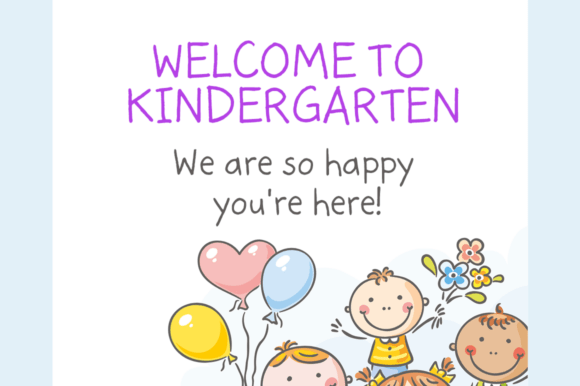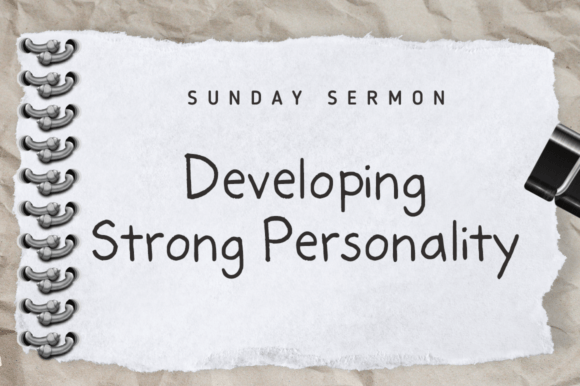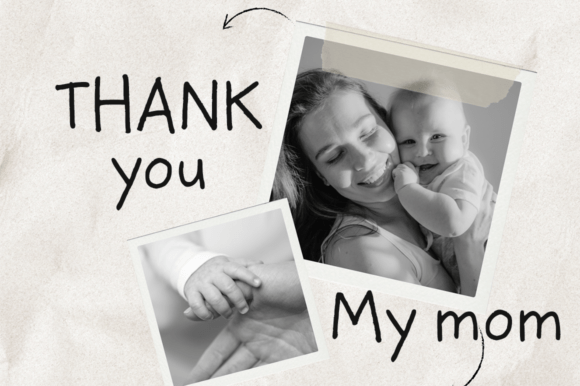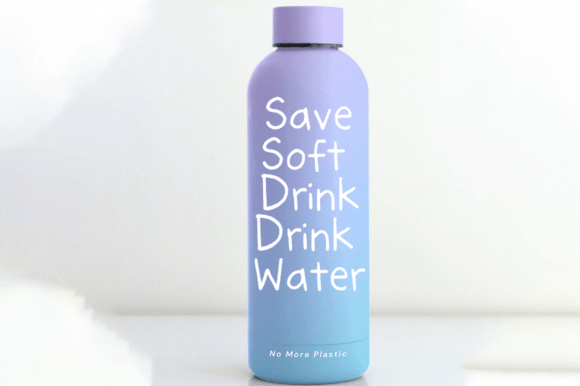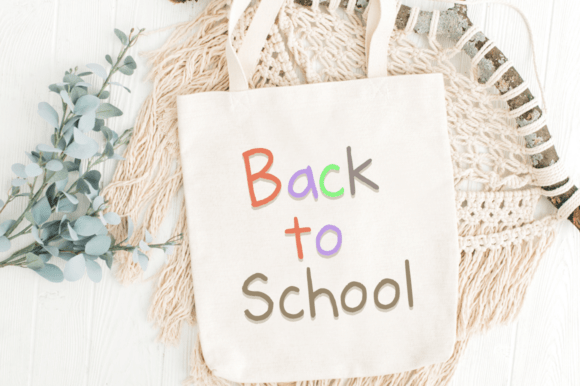
Bringing Back Childhood Memories with the Kids Crayon Font
Who among us hasn’t sat at a kitchen table, surrounded by crayons and paper, and let our imagination run wild? The vibrant colors and playful strokes of our childhood artwork bring a smile to our faces, reminding us of carefree days spent creating and exploring. As designers, we’re often tasked with capturing that same sense of whimsy and wonder in our projects. That’s where the Kids Crayon Font comes in – a delightful, handwritten font that embodies the essence of crayon stylings.
With its unique, hand-drawn charm and effortless readability, the Kids Crayon Font is a valuable addition to any designer’s toolkit. Whether you’re working on a children’s book, a birthday party invitation, or a family-themed advertisement, this font is sure to bring a touch of joy and youthfulness to your project.
Kids Crayon Font Key Features
- Unique Characteristics: The Kids Crayon Font is designed to mimic the look and feel of children’s crayon drawings, with bold, colorful lines and playful letterforms.
Designer Review: Kids Crayon Font
Overall, the Kids Crayon Font has a certain charm to it. ✨ The use of bold, bright colors and playful scribbles creates a whimsical feel that’s perfect for children’s books and educational materials. The font’s irregularities and imperfections also give it a hand-drawn, personal touch that can be very effective in conveying a sense of innocence and playfulness.
One of the strengths of the Kids Crayon Font is its versatility. ✨ It can be used for a wide range of applications, from headings and titles to body text and illustrations. The font’s bold weight is particularly well-suited for highlighting important information or creating visual interest.
- ⚠️ The font’s irregularities can make it difficult to read at small sizes or in long blocks of text.
- ⚠️ The font’s bold weight can be overwhelming if used extensively throughout a document.
- ⚠️ The font may not be suitable for formal or professional applications due to its playful, childlike appearance.
Overall, the Kids Crayon Font is a fun and engaging choice for children’s materials and educational content. While it may have some limitations, its unique charm and versatility make it a great option for designers looking to add some personality to their projects.
Use the Kids Crayon Font to create:
1. Whimsical children’s book illustrations.
2. Colorful social media graphics.
3. Educational materials and worksheets.
4. Party invitations and decorations.